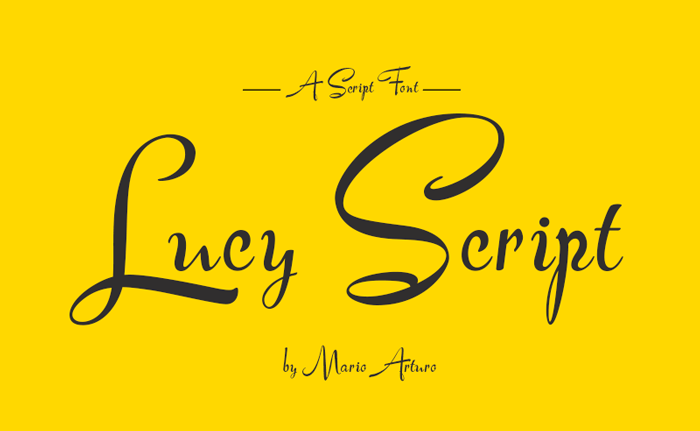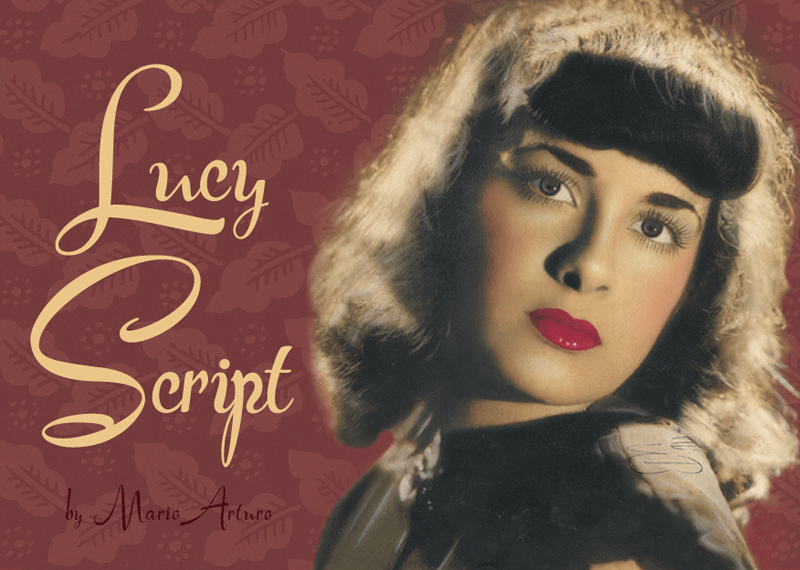
Lucy Script Font
Introducing Lucy Script Font!. Lucy Script was designed and shares by Mario Arturo. Capital letters originally named “Individual Capitals” traced from: The ABC of Lettering by J.I. Biegeleisen. Harper & Row Publishers NY 1965. ISDN 65-14683. Now, under a new name, I designed the lowercases, numbers and punctuations inpired in different sources.